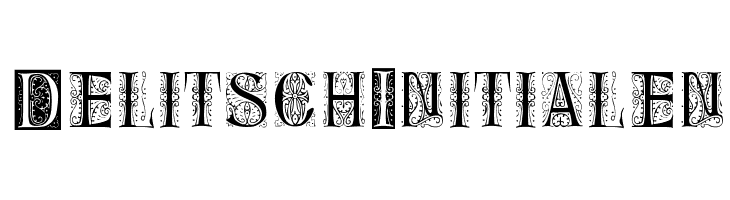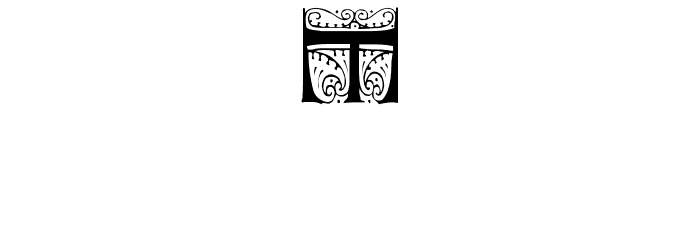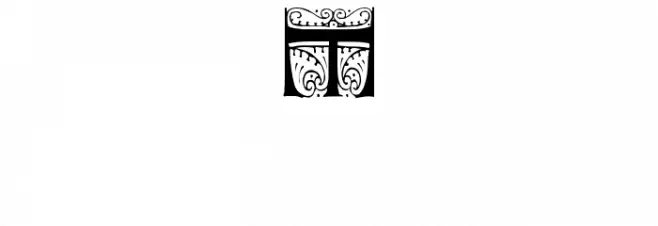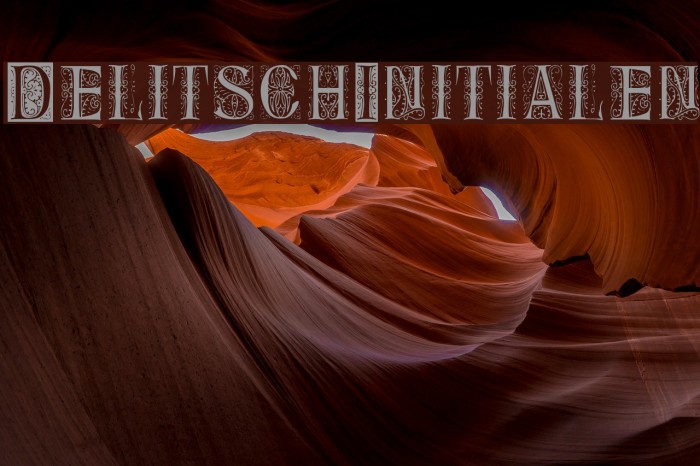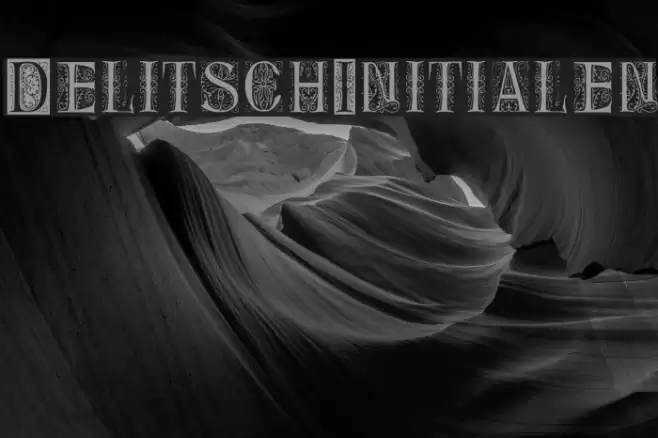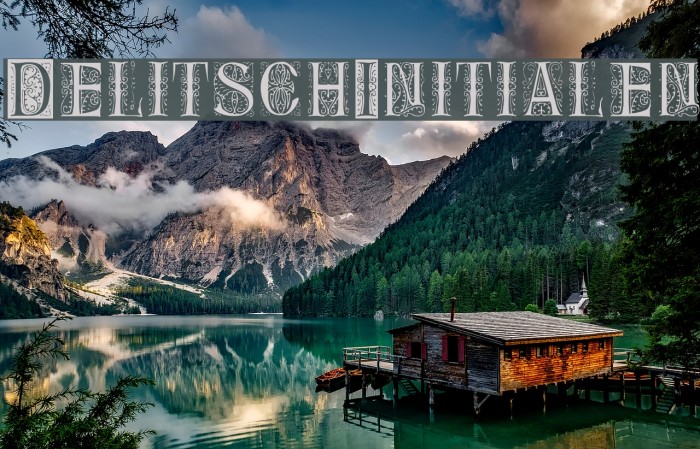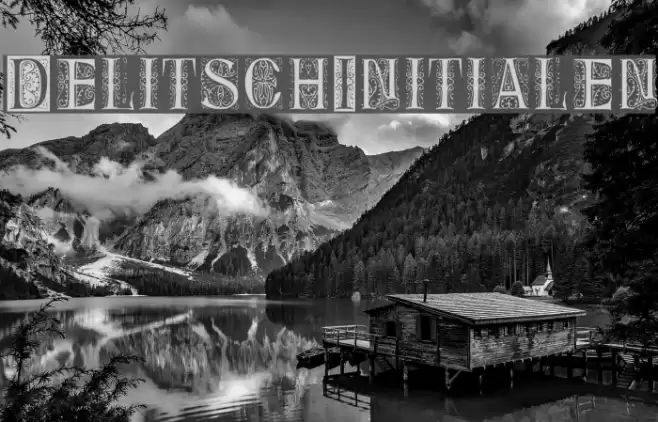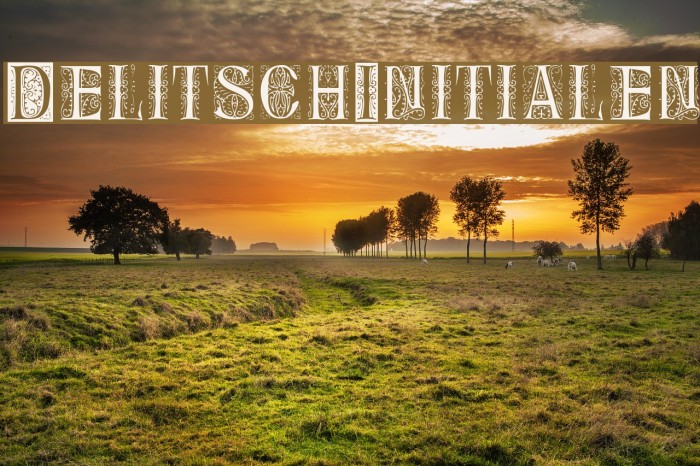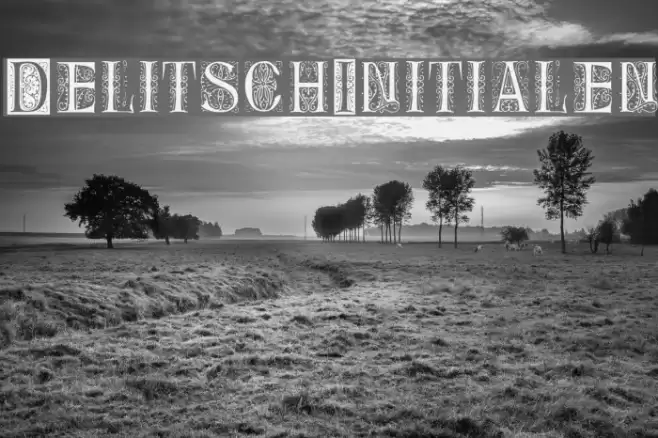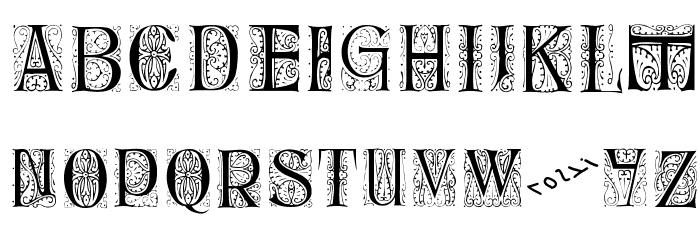
DelitschInitialen Font
DelitschInitialen Description
This font features ornate and intricate designs, with each letter enclosed in a decorative square. The elaborate patterns within the letters give it a highly decorative and vintage feel, reminiscent of illuminated manuscripts or classical engravings. The letters are bold and have a strong presence, making them suitable for display purposes. The intricate details within each character suggest a high level of craftsmanship and artistry, making this font ideal for projects that require a touch of elegance and sophistication.
| Overall Style | Vintage |
| Proposed Projects | Ideal for wedding invitations, vintage-themed posters, book covers, and decorative signage. |